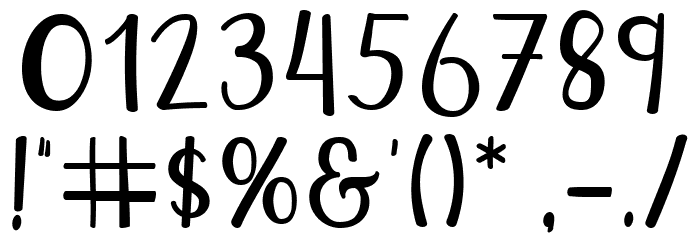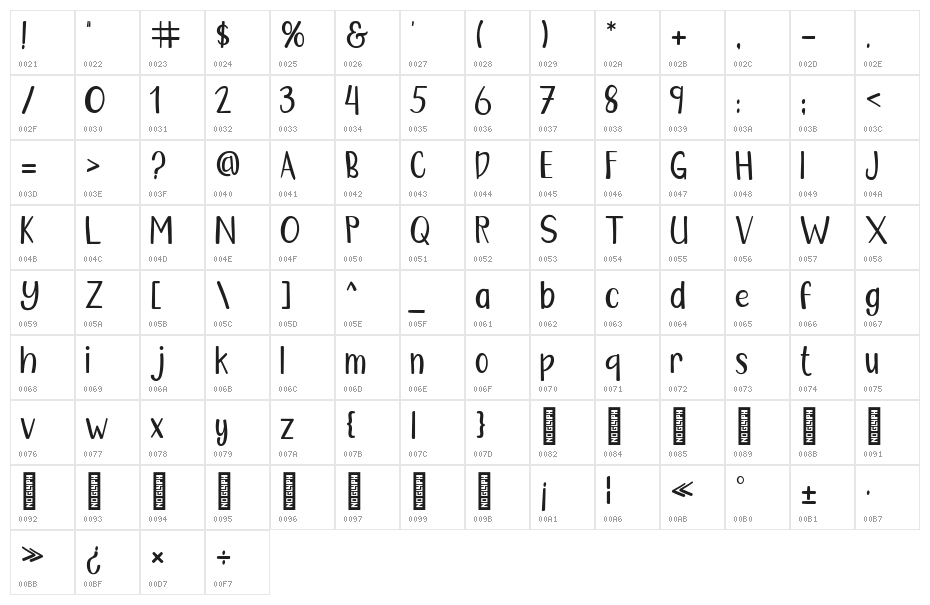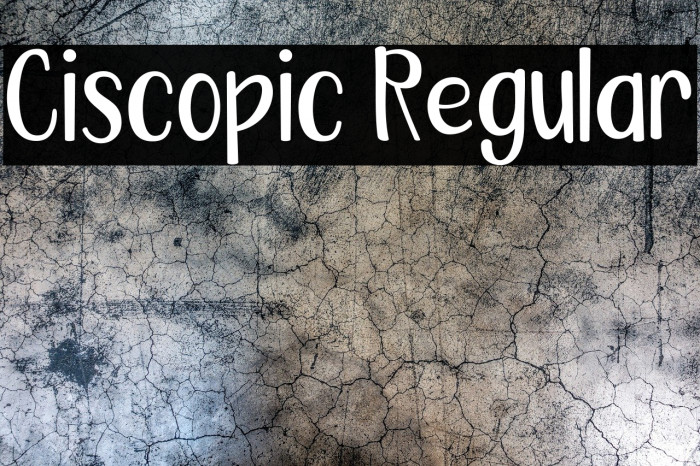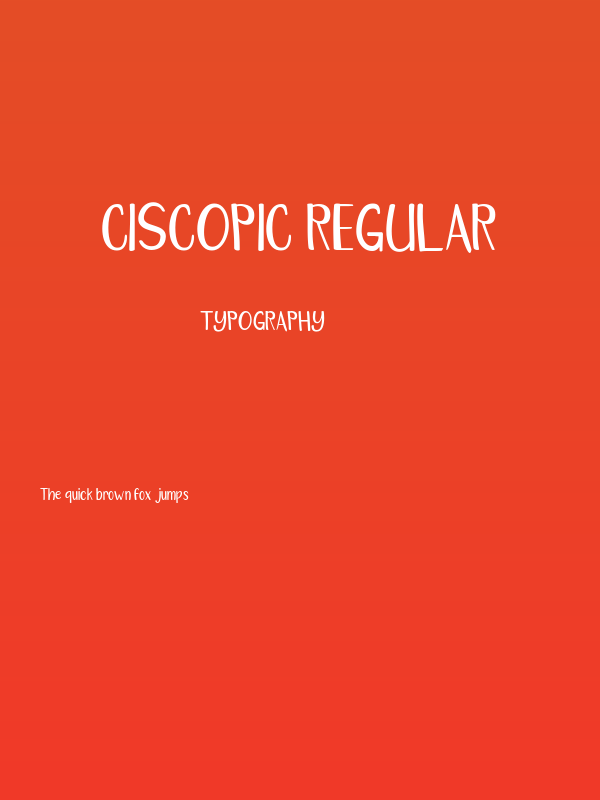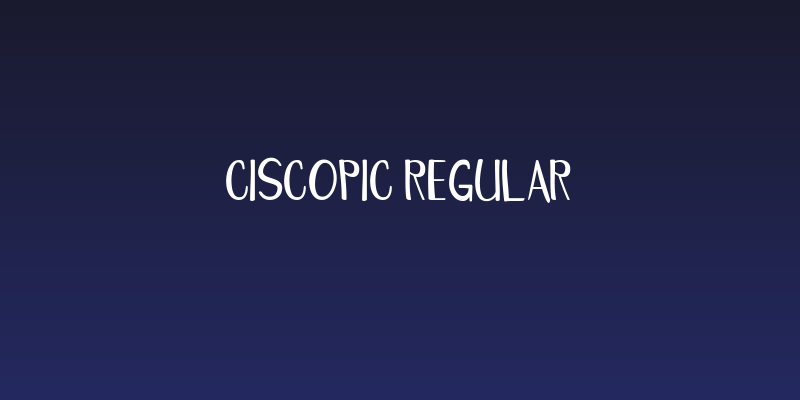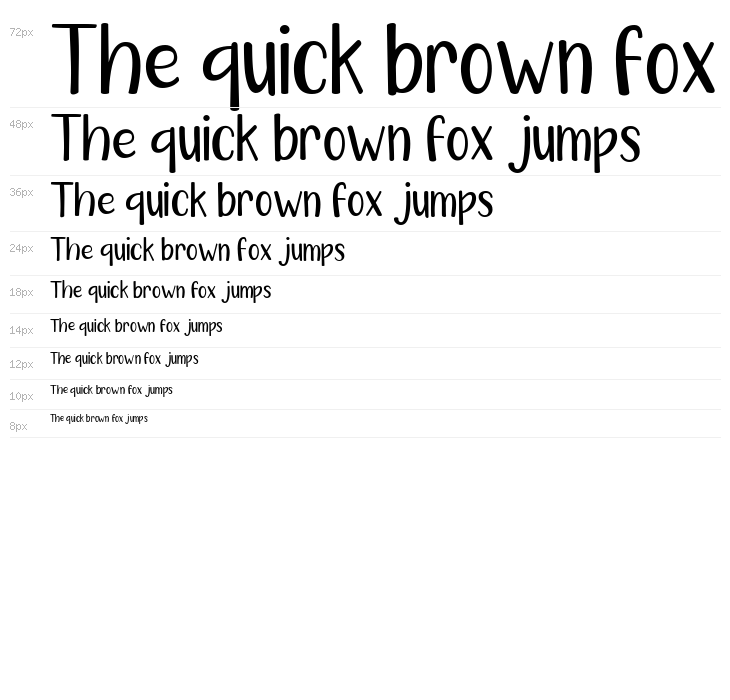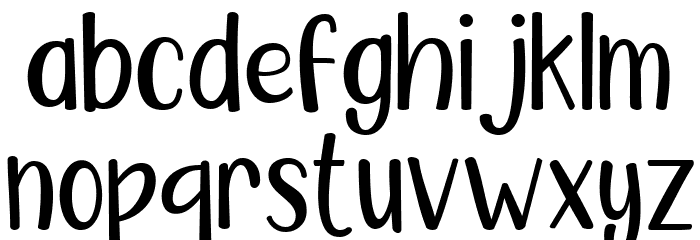
Ciscopic Regular Font
Ciscopic Regular Description
This font features a playful and whimsical style, characterized by its rounded and slightly irregular letterforms. The uppercase and lowercase letters maintain a consistent height, creating a harmonious appearance. The strokes are smooth and fluid, giving the font a friendly and approachable feel. The numerals are clear and easy to read, matching the overall aesthetic. Special characters are well-integrated, maintaining the font's cohesive look. This font is perfect for projects that require a touch of fun and creativity.
| Proposed Projects | Ideal for children's books, greeting cards, playful branding, and creative posters. |